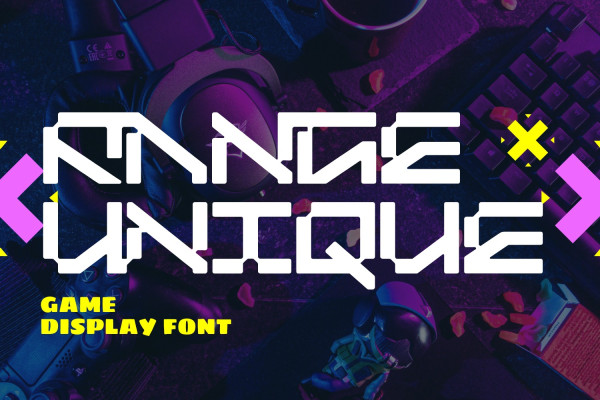
Range Unique Font
Range Unique Font – Inspired by the early days of video games where the graphics were made of squares (pixels), I comes up with pixel based typeface design. This font is a bold and chunky lettered display font. Add this font to your creative ideas and notice how it will make them stand out! Retro, retro-futuristic, modern, techno theme projects fit perfectly with this typeface, any works from logo, poster, video, headlines, titles, and more!
Range Unique was built with OpenType features and includes 100 ligatures, alternate, numbers, punctuation, and it also supports other languages.
AC AD AL AN AR AS AT AU AV BE CA CE CH CO CT DE DI EA EC ED EE EL EM EN EP ER ES ET FE FO FR GE HA HE HI HO IE IC IL IN IO IR IS IT JU KE LA LE LI LL LO LY MA ME MI NC ND NE NG NO NT NS OC OF OM ON OO OP OR OT OU OW PA PR RA RD RE RI RO RS RT SE SH SI SO SS ST TA TE TH TI TO TR TT UM UN UR VE WI WO